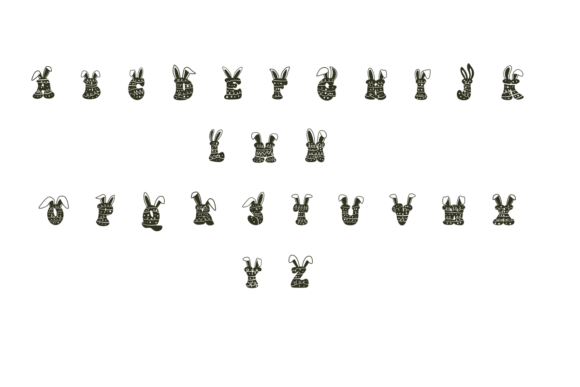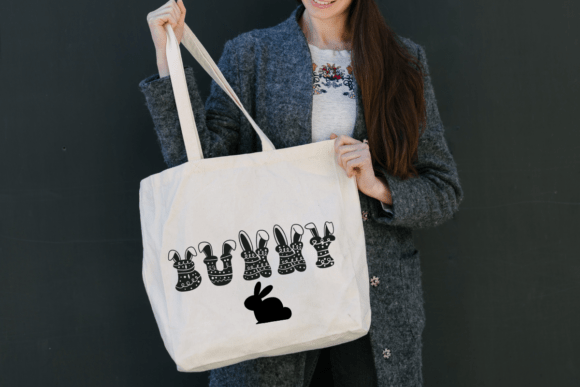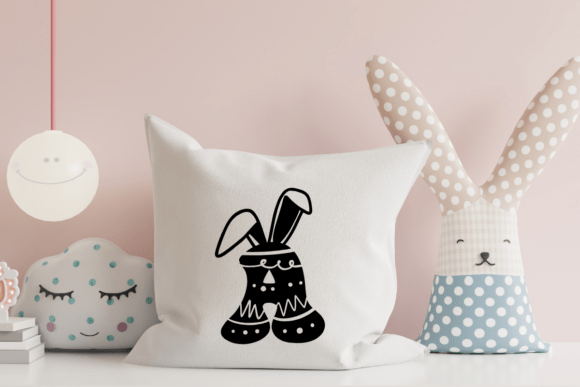
Celebrate Easter with the Cute Easter Bunny Font
As the Easter season approaches, designers and crafters are on the lookout for the perfect typography to add a touch of whimsy and playfulness to their projects. Look no further than the Cute Easter Bunny font, a delightful decorative typeface that’s sure to bring a smile to everyone’s face. This charming font is brimming with playful patterns and “bunny ear” accents, making it the perfect addition to any Easter-themed DIY project.
A Handcrafted Feel
Each letter in the Cute Easter Bunny typeface is a work of art, featuring hand-drawn dots, waves, and zig-zags that embody a joyful, handcrafted feel. The font’s chunky, friendly silhouettes make it exceptionally easy to use for sublimation and vinyl cutting, allowing you to create vibrant and eye-catching designs with ease. Whether you’re working on personalized t-shirts, festive home decals, or any other DIY project, the Cute Easter Bunny font is sure to add a touch of personality and charm.
Perfect for High-Energy Designs
The Cute Easter Bunny typeface is engineered for high-energy designs that need to stand out. Its bold and playful nature makes it perfect for festive banners, stickers, and any project where you want to spread a little bit of springtime happiness. Pair it with bright, candy-colored gradients to enhance its playful nature and create designs that are sure to grab attention.
The Cute Easter Bunny font is a must-have for vibrant “Mama Life” DIY projects, but its versatility extends far beyond. Designers and crafters can use this font to create a wide range of projects, from:
- Personalized t-shirts and hoodies
- Festive home decals and stickers
- Easter-themed party invitations and decorations
- Custom gifts and accessories
Why Choose the Cute Easter Bunny Font?
So why choose the Cute Easter Bunny font for your Easter-themed projects? Here are just a few reasons:
- Unique and playful design: The Cute Easter Bunny font features a one-of-a-kind design that’s sure to add a touch of whimsy to your projects.
- Easily customizable: The font’s hand-drawn design makes it easy to customize and pair with other fonts and graphics.
- High-quality and versatile: The Cute Easter Bunny font is perfect for a wide range of projects, from digital designs to print materials.
- Perfect for Easter and spring-themed projects: The font’s Easter-themed design makes it perfect for seasonal projects and promotions.
Tips for Using the Cute Easter Bunny Font
Here are a few tips for getting the most out of the Cute Easter Bunny font:
- Pair it with bright colors: The font’s playful nature is enhanced by bright, candy-colored gradients and backgrounds.
- Experiment with different sizes: The Cute Easter Bunny font looks great in a variety of sizes, from small and delicate to large and bold.
- Use it for headlines and titles: The font’s bold and playful nature makes it perfect for headlines and titles.
- Add Easter-themed graphics: Take your designs to the next level by adding Easter-themed graphics, such as eggs, bunnies, and flowers.
The Cute Easter Bunny font is a delightful decorative typeface that’s sure to bring a touch of whimsy and playfulness to your Easter-themed projects. With its handcrafted feel, chunky silhouettes, and playful patterns, this font is perfect for designers and crafters who want to create vibrant and eye-catching designs. Whether you’re working on personalized t-shirts, festive home decals, or any other DIY project, the Cute Easter Bunny font is a must-have for adding a little bit of springtime happiness to your designs.